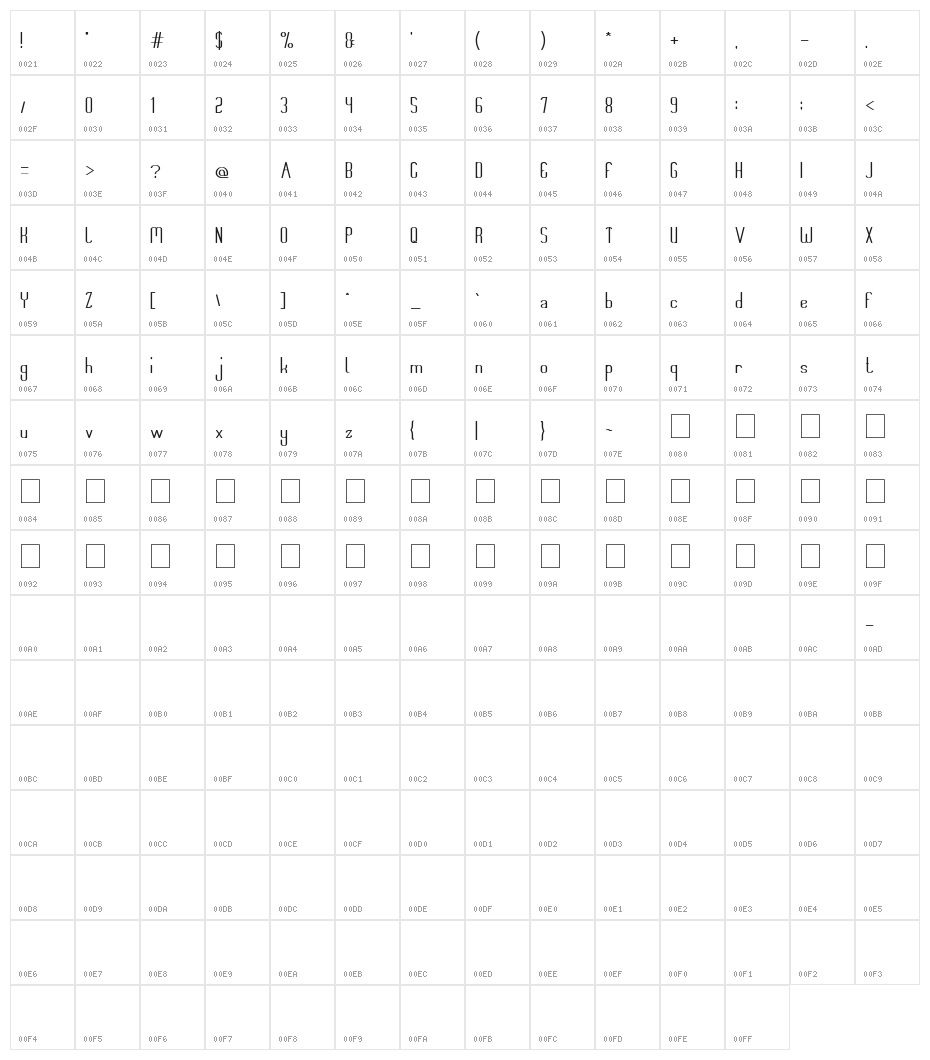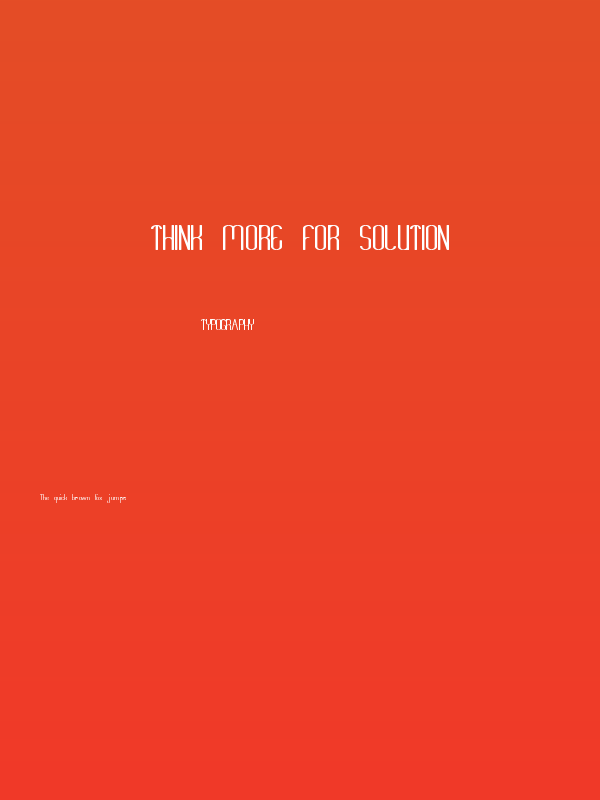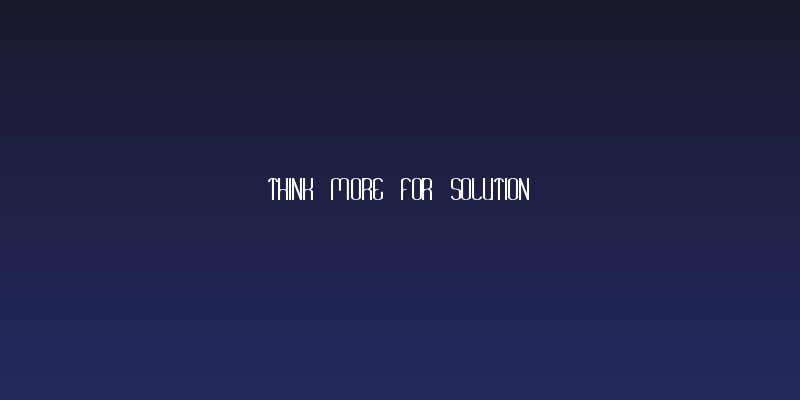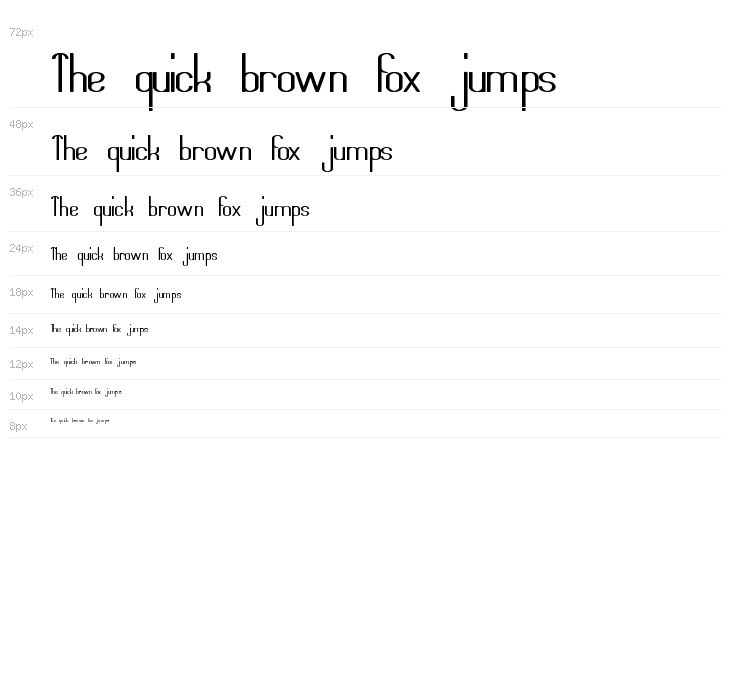
Think More for Solution Font
✎ Futuristic
| Anwendungsfall | Headlines, Logos, Digital interfaces |
| Vorgeschlagene Projekte | Ideal for tech branding, modern posters, futuristic designs, and digital interfaces. |